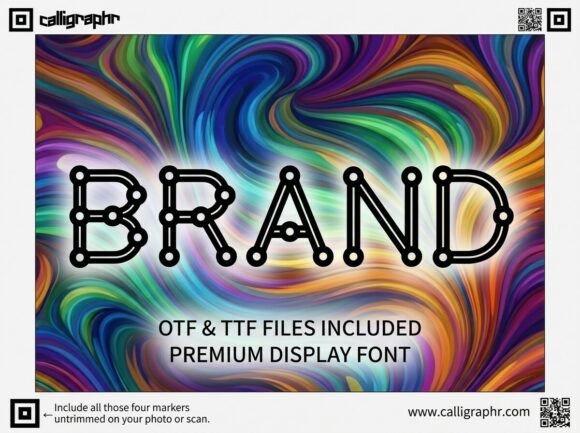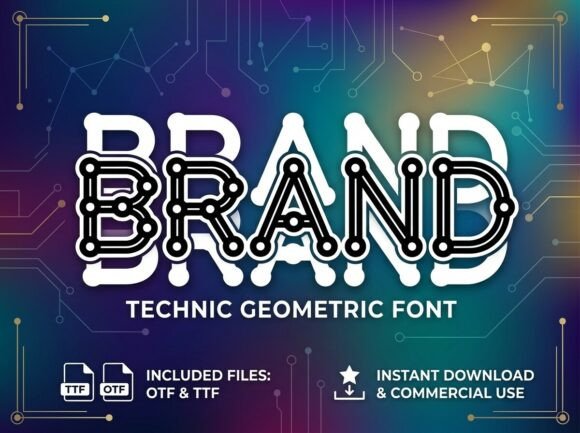
The Power of Brand Font: Elevate Your Design with a Stunning Decorative Display Font
As a designer or craftsperson, you’re constantly on the lookout for innovative ways to make your creations stand out from the crowd. One often-overlooked yet crucial element in achieving this is the font you choose for your project. This is where a brand font comes into play – a unique and eye-catching typeface that can instantly elevate your design and make it more memorable. In this article, we’ll explore the world of brand fonts, focusing on a specific stunning decorative display font that’s designed to turn heads.
Introducing a Stunning Decorative Display Font
The font we’re excited to introduce is a game-changer for creators who want to break away from the ordinary. This decorative display font is specifically crafted to be the center of attention, boasting unique artistic elements and a strong visual personality. Whether you’re working on bold headlines, artistic logos, or creative packaging, this font is versatile enough to deliver a professional and polished finish.
Key Features of the Font
So, what makes this font so special? Here are some of its key features:
- Unique Artistic Elements: The font’s design is packed with artistic flair, making it perfect for projects where you want to make a statement.
- Strong Visual Personality: Its distinctive style ensures that your text won’t go unnoticed, adding a touch of personality to your design.
- Versatility: Use it for bold headlines, artistic logos, and creative packaging, ensuring your project stands out.
- Professional Finish: Despite its decorative nature, the font maintains a professional look, suitable for a wide range of applications.
⚠️ IMPORTANT NOTE BEFORE PURCHASE: This font is an ALL-CAPS (Uppercase Only) display typeface. It does not include lowercase letters. It’s specifically designed for high-impact headlines, logos, and decorative initials where every letter is a work of art. This focus on uppercase letters ensures that each character is meticulously crafted to make a statement.
Why Choose This Font?
There are several reasons why this decorative display font could be the perfect choice for your next project:
- Attention-Grabbing: In a world filled with generic fonts, this typeface will grab attention and make your project memorable.
- Creative Freedom: Its unique design gives you the freedom to create artistic and engaging content that reflects your brand’s personality.
- Professionalism: Despite its creative edge, the font maintains a level of professionalism suitable for branding, advertising, and more.
How to Use This Font Effectively
To get the most out of this decorative display font, consider the following tips:
- Pair with Simpler Fonts: For body text, pair this font with a simpler, more readable typeface to create visual contrast.
- Use for Headlines and Logos: Its strengths lie in headlines and logos, where its unique design can make the most impact.
- Experiment with Colors and Textures: Don’t be afraid to experiment with different colors and textures to further enhance the font’s visual appeal.
In the world of design, fonts play a pivotal role in conveying your message and setting the tone for your brand. A brand font like this stunning decorative display font offers a unique opportunity to elevate your design, making it more engaging and memorable. With its artistic elements, strong visual personality, and versatility, it’s an excellent choice for designers and craftspersons looking to make a statement. So, if you’re ready to take your projects to the next level, consider adding this eye-catching font to your toolkit.